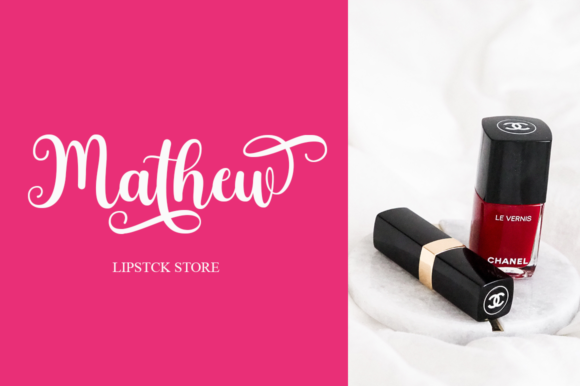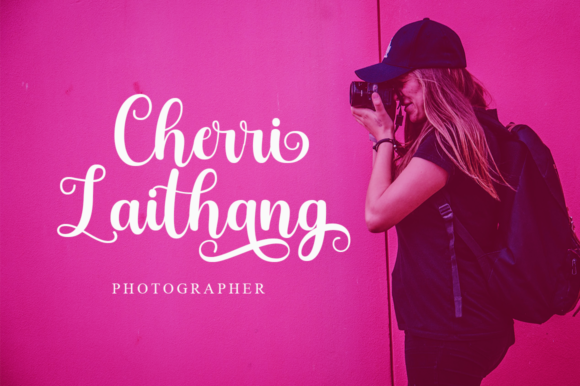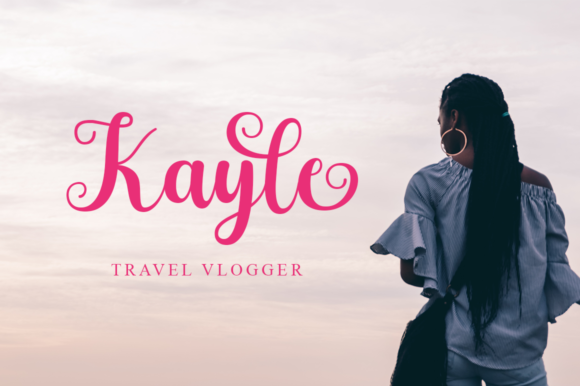
Nanshy Font
About Nanshy Font
Nanshy is a beautiful calligraphy font. Fall in love with its authentic feel and use it to create gorgeous wedding invitations, beautiful stationary art, eye-catching social media posts, and cute greeting cards.